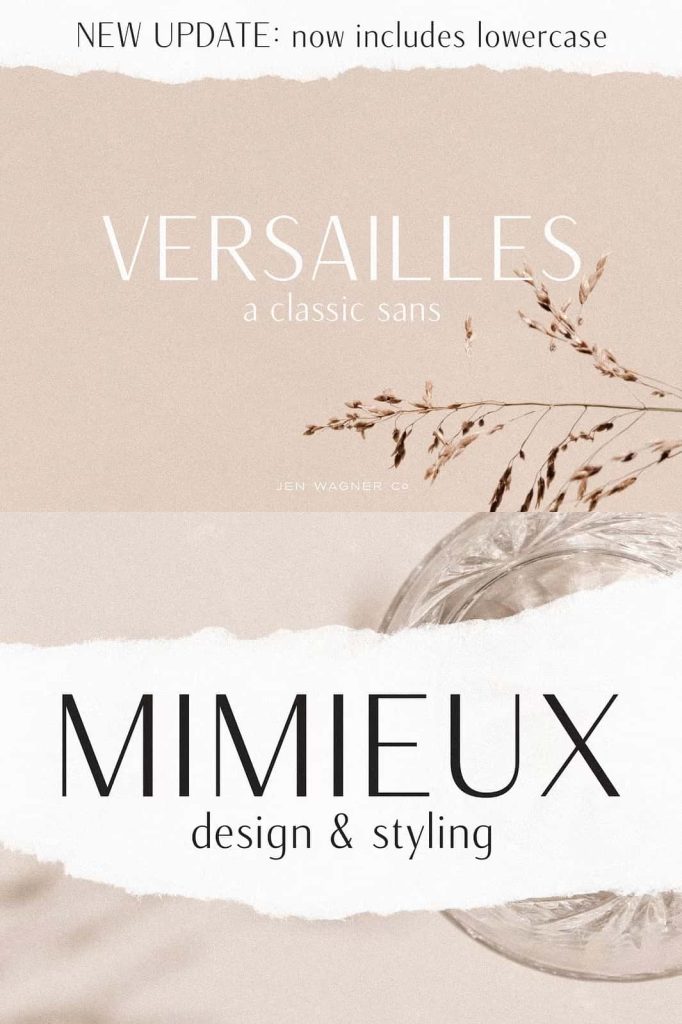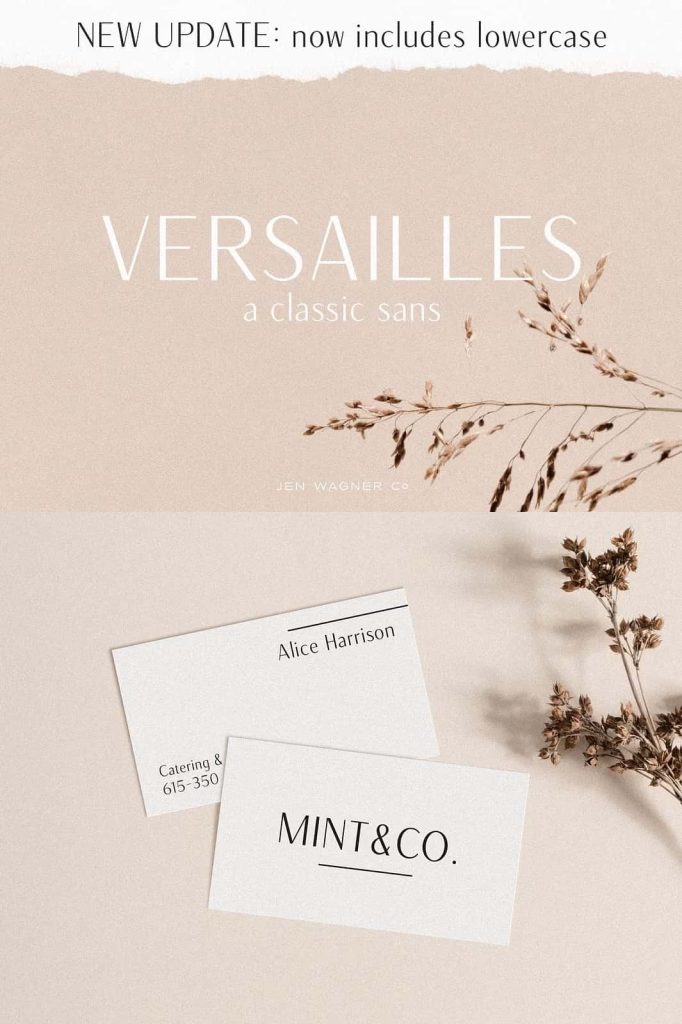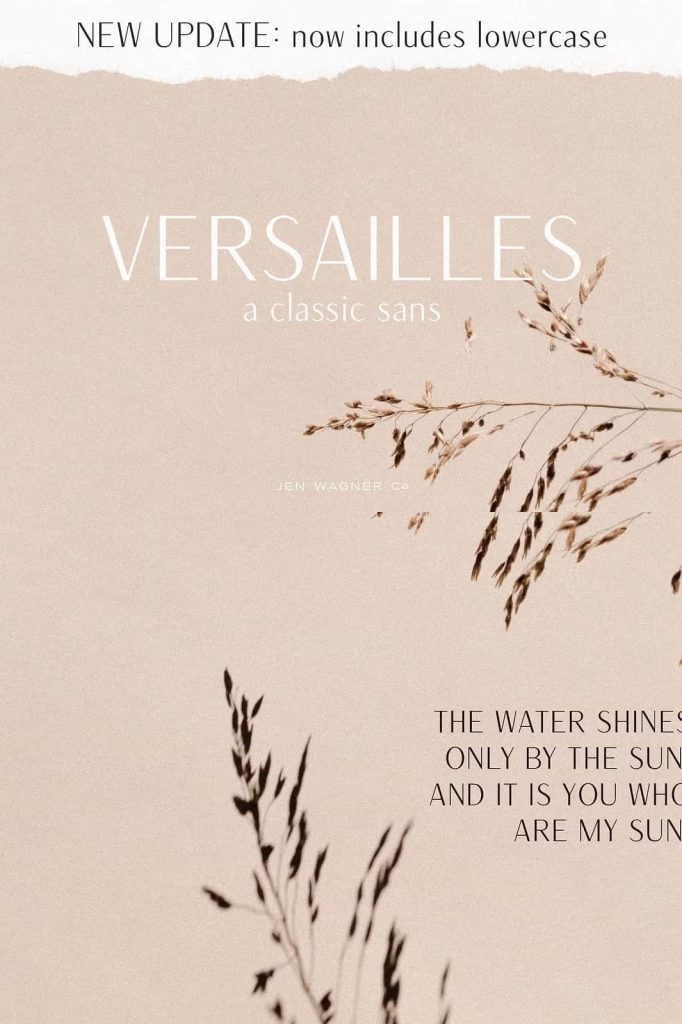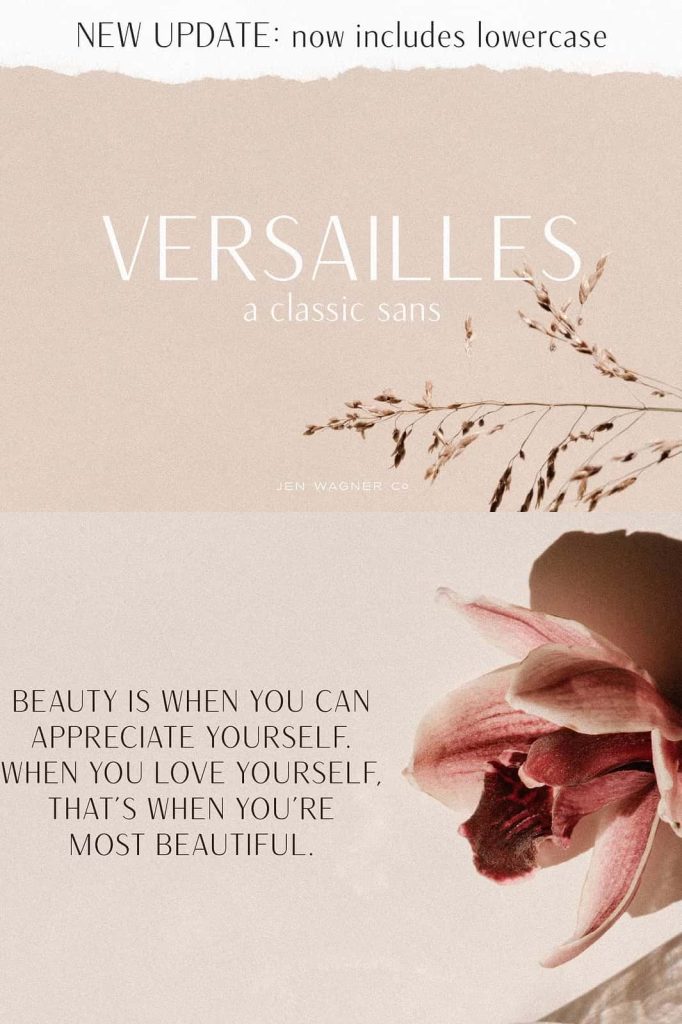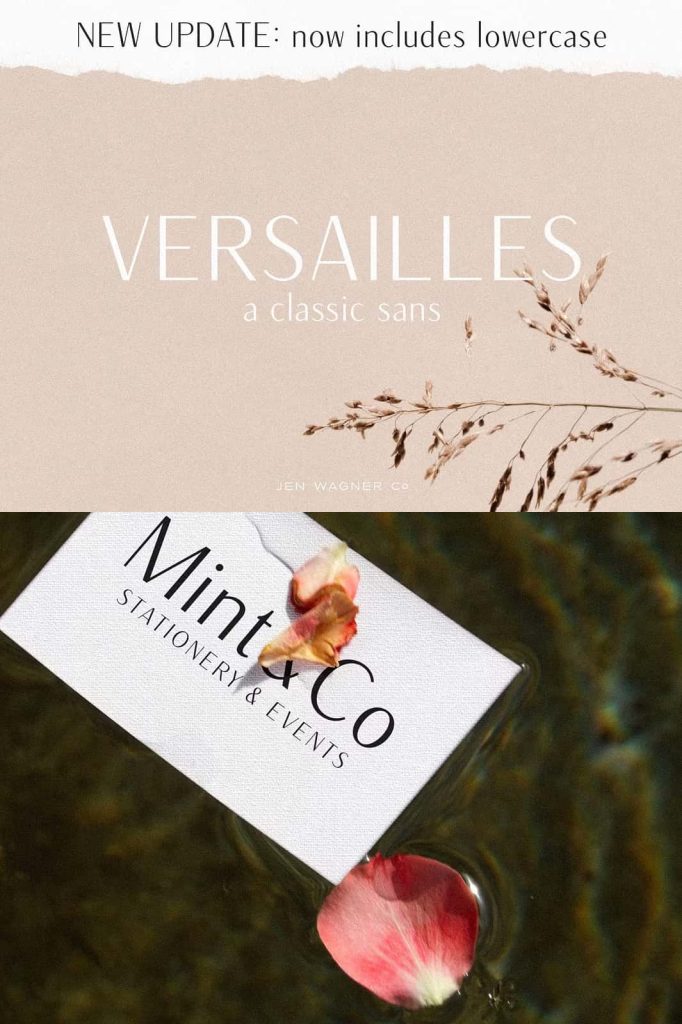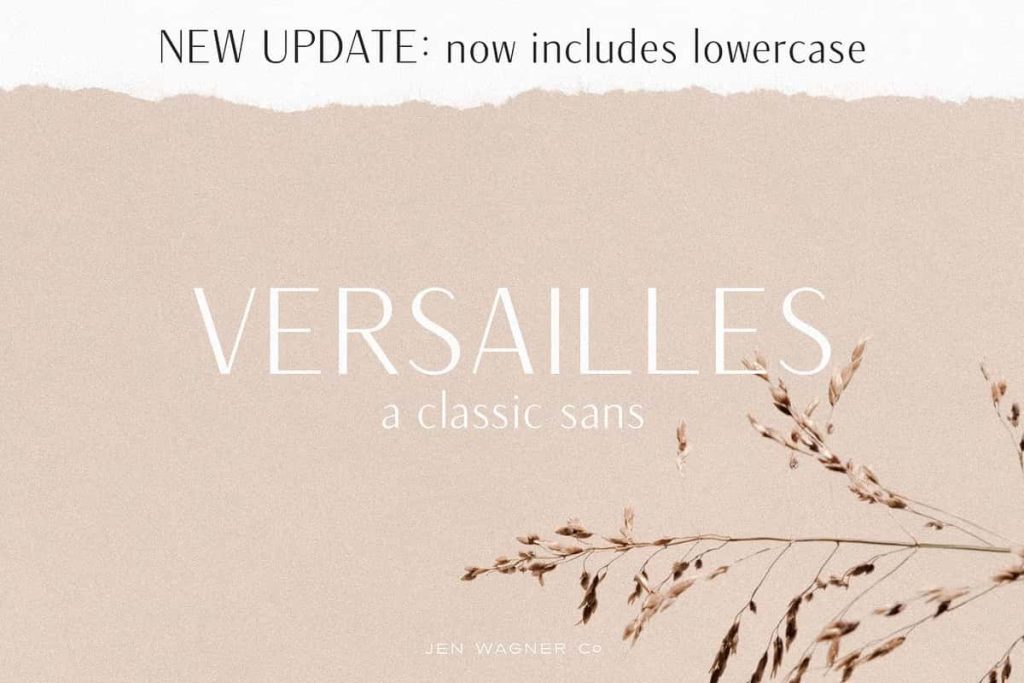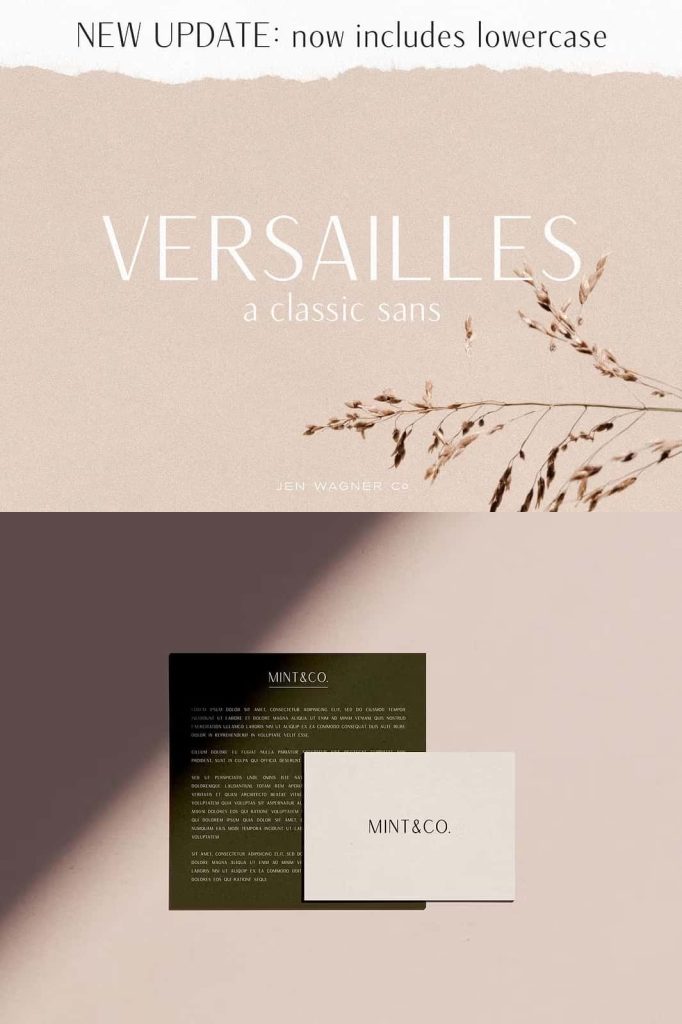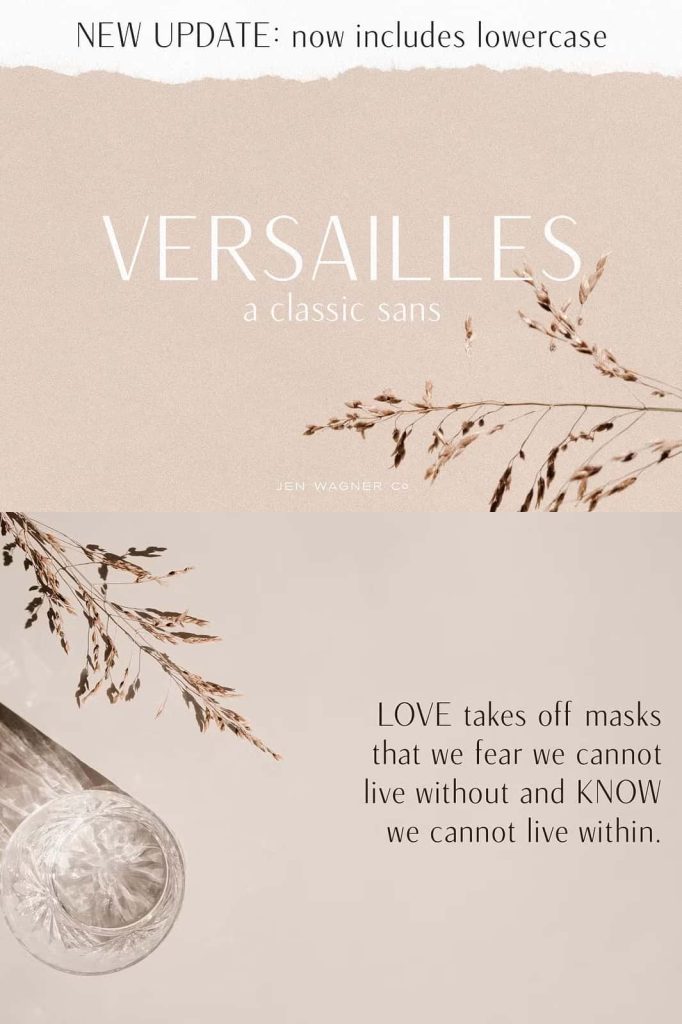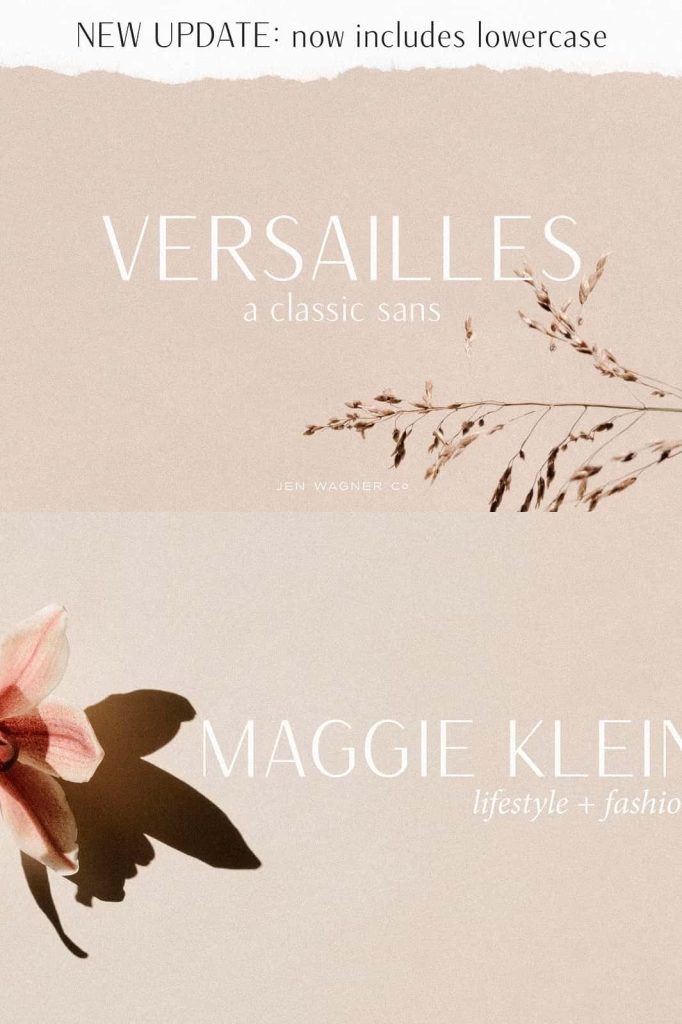
Versailles Sans Serif Font
The Versailles sans serif font delivers a refined balance between modern minimalism and classic elegance. Designed with smooth lines, subtle contrast, and carefully crafted proportions, Versailles captures the sophistication typically associated with serif typefaces while maintaining the clean clarity of a sans serif design. This thoughtful combination allows designers to create typography that feels both contemporary and timeless.
Many modern projects demand typography that communicates professionalism without appearing overly rigid or mechanical. Versailles addresses this need by offering a font that feels polished yet approachable. Its smooth structure creates an elegant typographic voice that works perfectly across branding, digital interfaces, and editorial design.
Because of its balanced letterforms and refined structure, Versailles performs especially well in visual identities where clarity and style must coexist. Whether used in a logo, website header, or brand presentation, this font provides a confident and sophisticated appearance.
A Sans Serif with the Elegance of a Serif
The Versailles sans serif font stands out because it combines two typographic traditions. On one side, it maintains the clean geometry and readability that define modern sans serif typefaces. On the other side, it introduces subtle stylistic details that reflect the elegance commonly found in serif typography.
This design approach creates a typeface that feels more refined than standard sans serif fonts. The letters feature gentle contrast between thick and thin strokes, adding visual interest without compromising clarity. These subtle details elevate the font’s personality and make it suitable for high-end branding and professional design work.
By blending these characteristics, Versailles offers designers the best of both worlds. It preserves the modern simplicity of sans serif typography while adding a touch of classical sophistication.
Clean and Smooth Letterforms
One of the most defining characteristics of the Versailles typeface is its smooth and clean letter construction. Every character follows a balanced structure that allows the text to appear polished and easy to read. The curves flow naturally, and the spacing between letters ensures a comfortable reading experience.
These design qualities make the font highly adaptable across different layout types. In large display settings such as headlines or logos, the refined curves and subtle contrasts become more visible, adding elegance to the design. In smaller text environments, the clarity of the letterforms maintains strong readability.
The result is a versatile typeface that maintains consistency across multiple design applications. Designers can rely on Versailles to deliver a refined look without sacrificing functionality.
Perfect for Logos and Brand Identity
The Versailles sans serif font works exceptionally well in logo design and brand identity development. Businesses often need typography that communicates trust, professionalism, and style. Versailles offers these qualities through its balanced and elegant structure.
Logos created with Versailles feel modern yet timeless. The clean lines help maintain clarity at different sizes, while the subtle contrast gives the lettering a distinctive personality. This combination allows brands to stand out while maintaining a sophisticated image.
Designers frequently choose fonts like Versailles for luxury brands, fashion companies, creative studios, and professional service providers. The typeface projects confidence and refinement, helping brands establish a strong visual presence.
Ideal for Web Headings and Digital Design
Versailles also performs beautifully in digital environments. Website headings, landing page titles, and online promotional graphics benefit from the font’s clean and modern appearance. The structured letterforms display well on screens and remain readable across different device sizes.
Because web typography requires clarity and visual hierarchy, designers need fonts that guide the reader’s attention effectively. Versailles achieves this by combining strong structure with subtle elegance. Headlines become visually appealing while remaining easy to scan.
Digital designers often pair Versailles with simpler body text fonts to create balanced layouts. In these situations, the font serves as a refined headline typeface that anchors the overall design.
A Timeless Typeface for Modern Design
Timeless typography plays a crucial role in design projects that aim for long-lasting visual appeal. The Versailles sans serif font embodies this principle by avoiding overly trendy features while embracing classic typographic balance.
Its design remains modern without appearing temporary or overly experimental. This quality makes the font suitable for projects that require longevity, such as corporate branding, editorial publications, and professional portfolios.
By combining the modern simplicity of a sans serif typeface with the graceful sophistication of serif-inspired details, Versailles creates typography that feels polished, elegant, and highly adaptable. This makes it a reliable choice for designers who want to produce refined and professional visual communication.